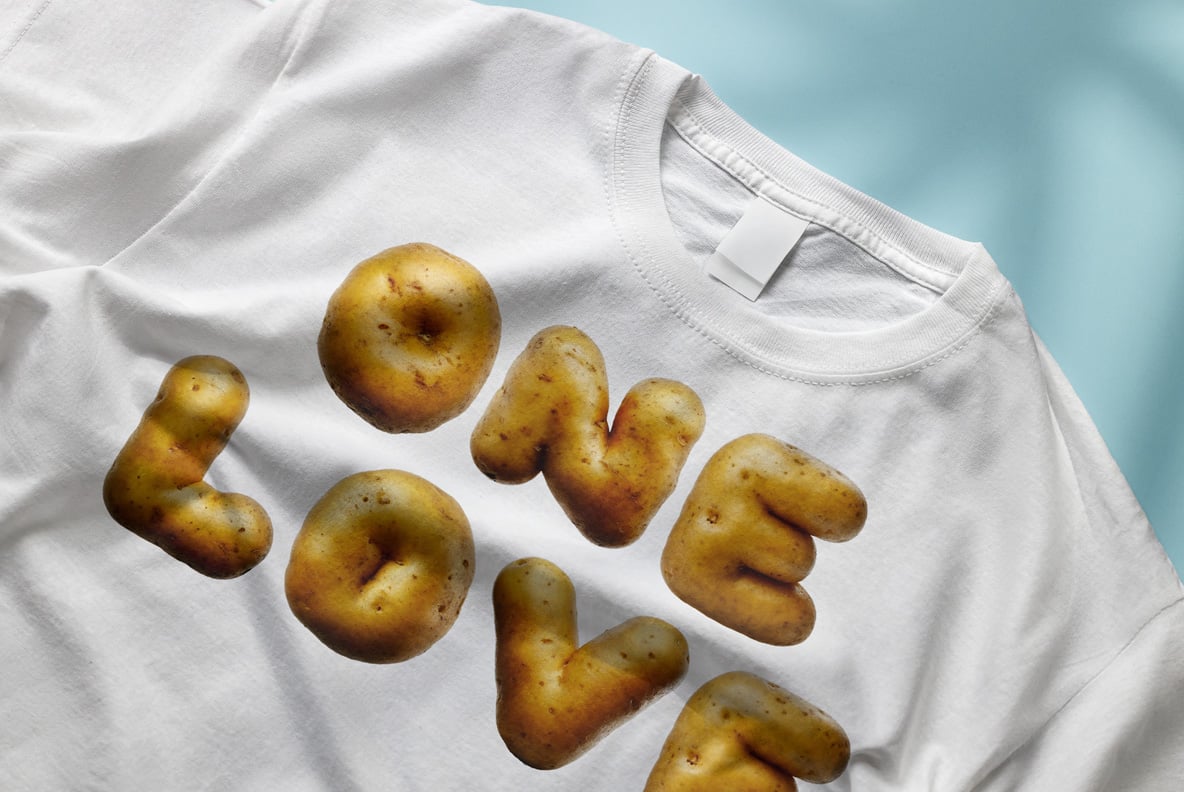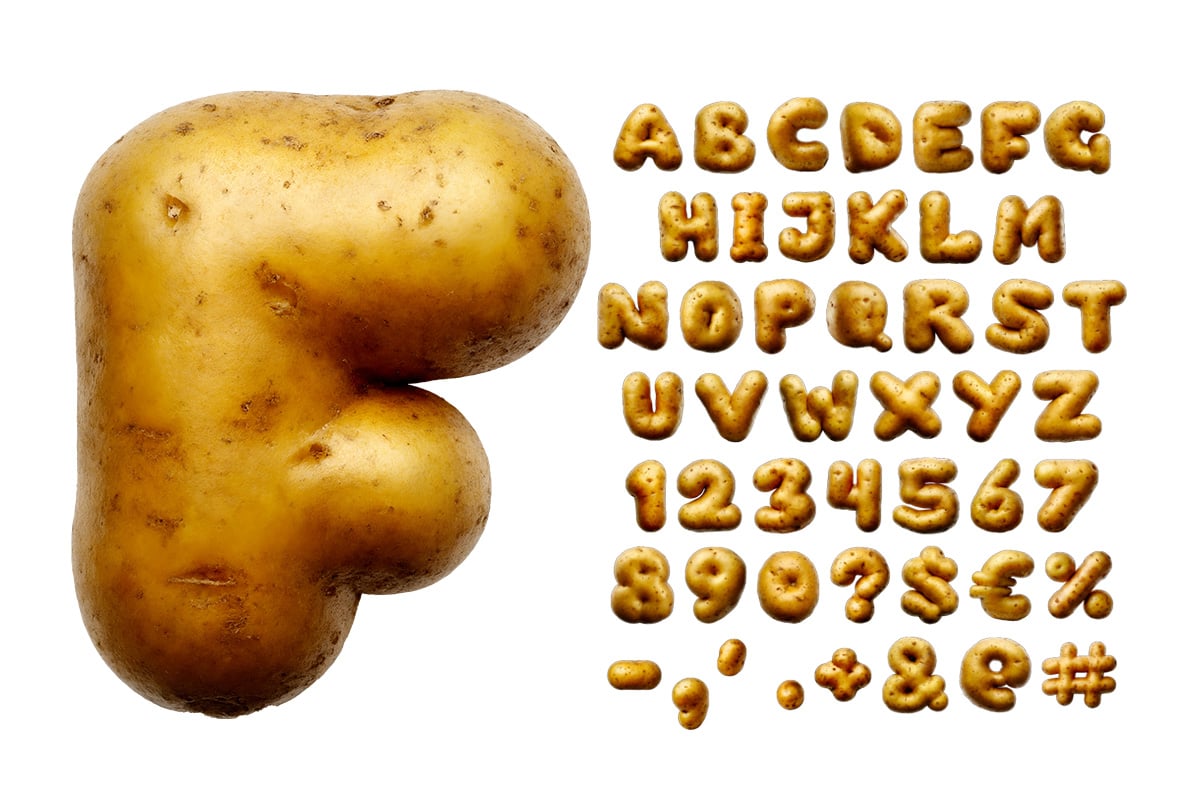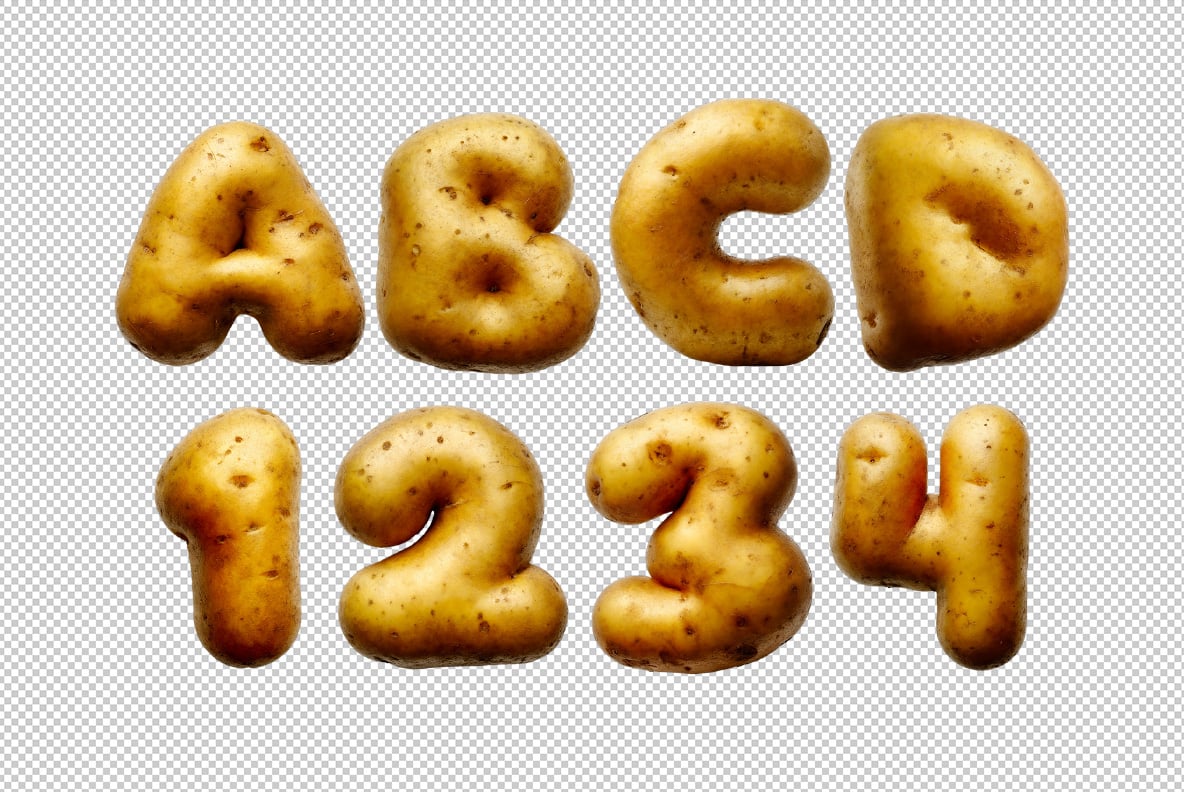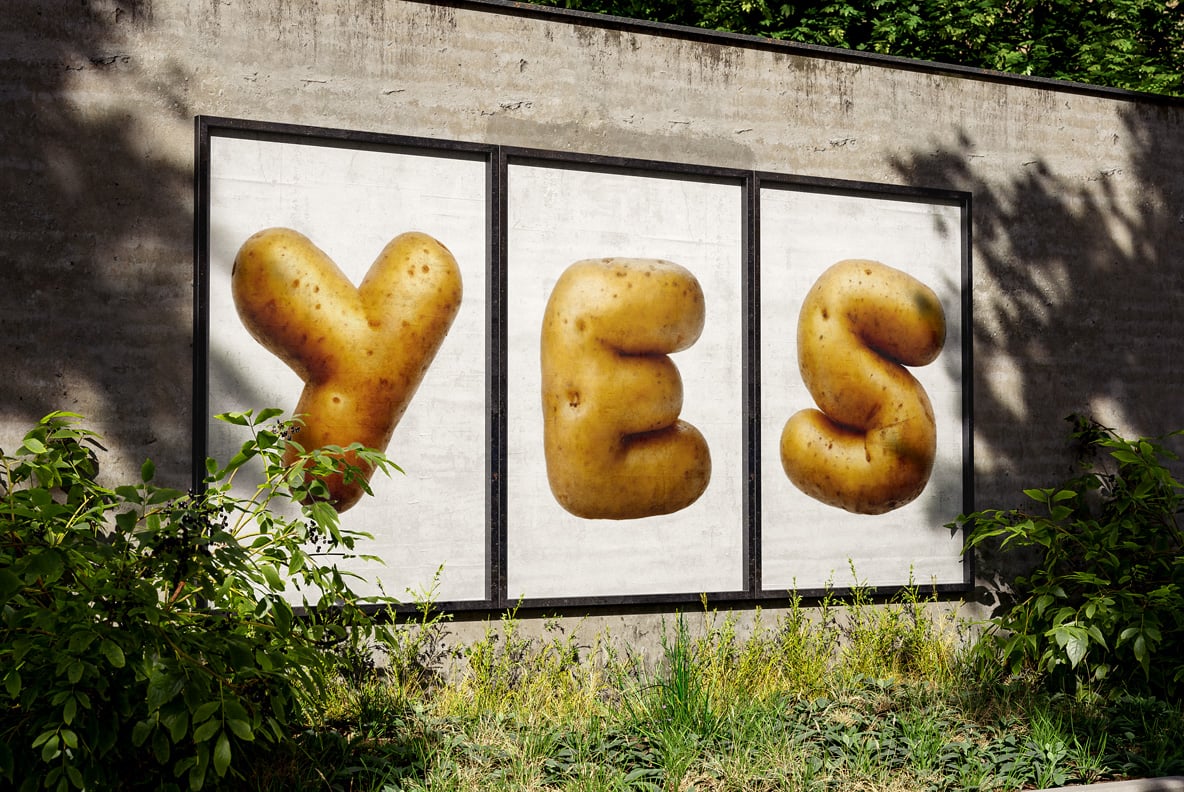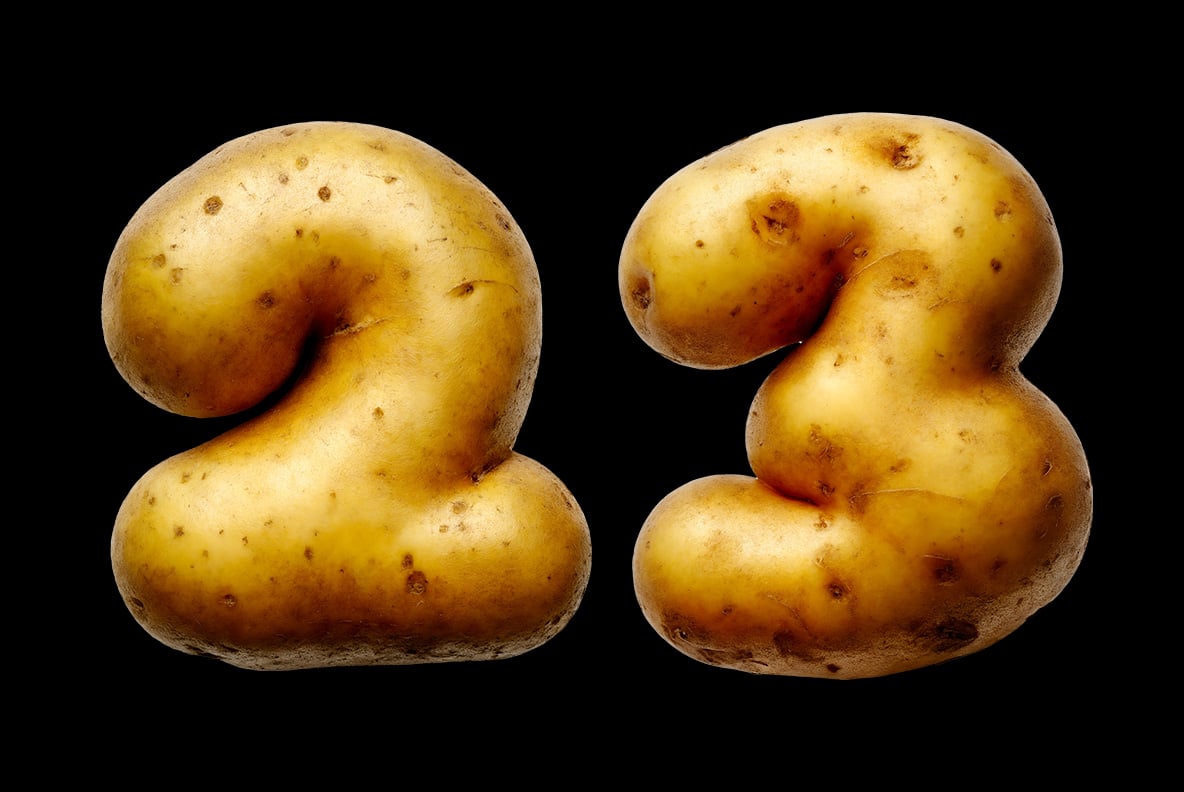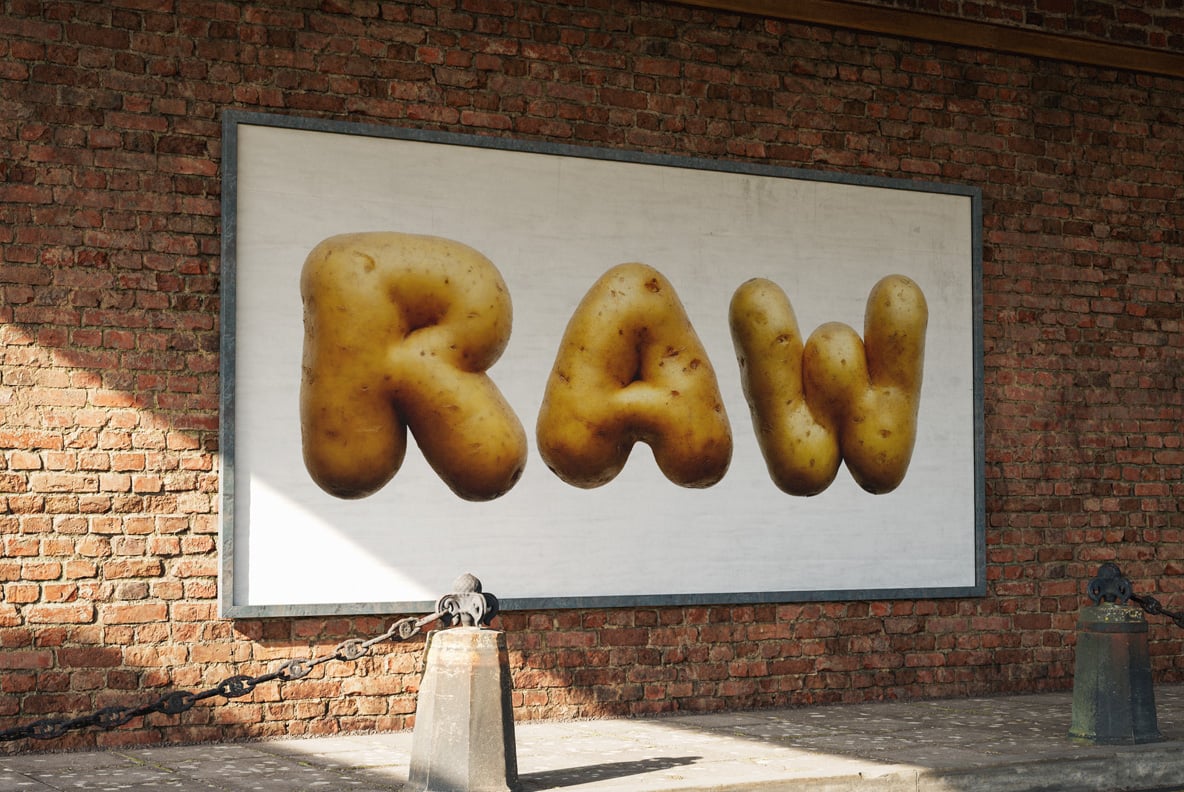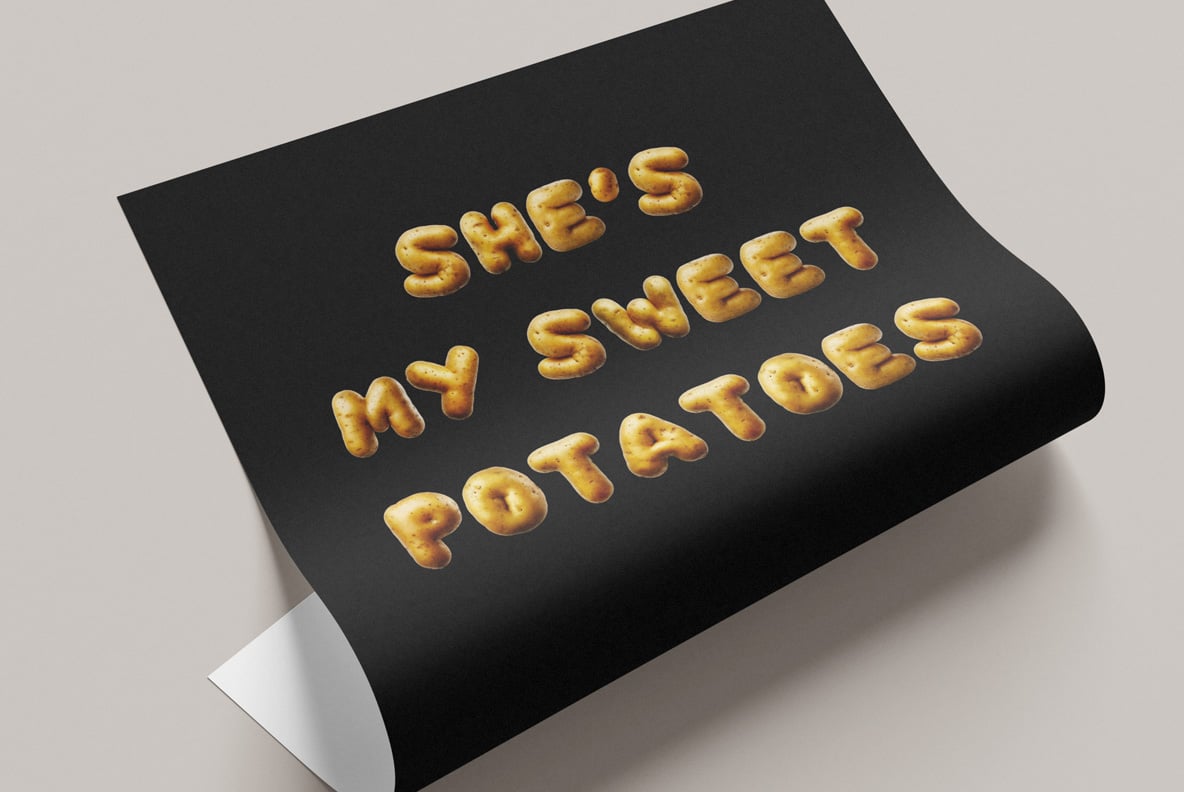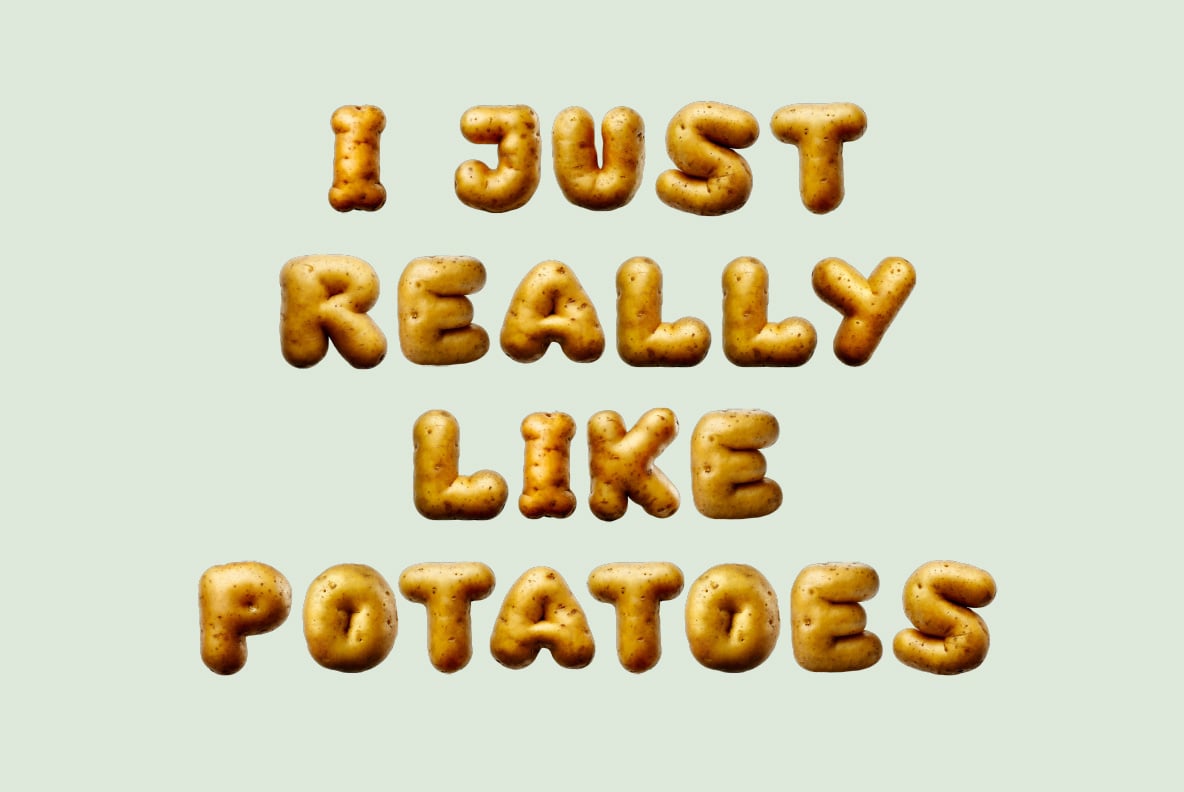
Potato Font
Potato Font is a quirky, earthy typeface inspired by the humble potato! Each letter brings the raw, textured look of brown potatoes to life, forming a fun, rustic alphabet perfect for playful projects. With a mix of potato-inspired shapes and textures, Potato Font adds a deliciously organic feel to any design. Perfect for foodie and farm-inspired themes!
A high definition OpenType Font. Contains uppercase characters, numerals and basic punctuation. (Draw height roughly 800 pixels). All letters and glyphs that comprises this font you can see on the preview.
Others : ! ? - . ' $ € % @ &